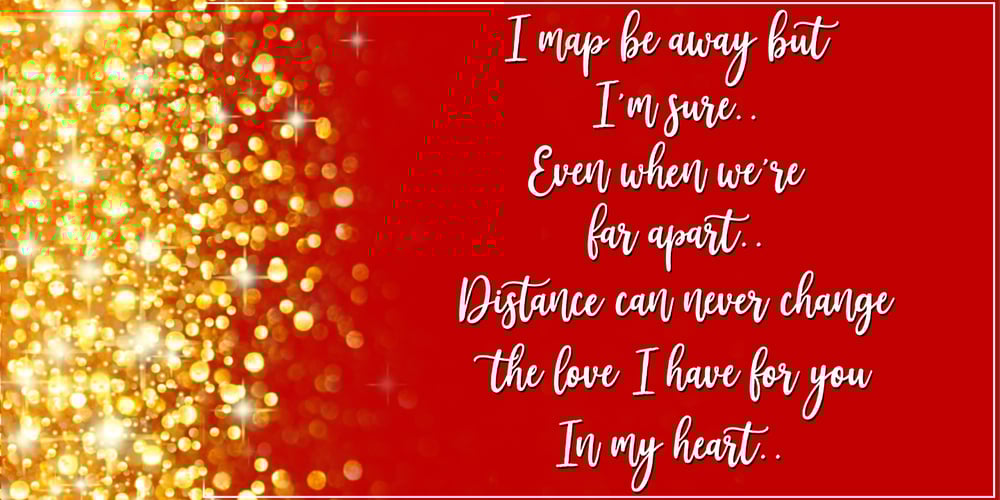
Natashabela Font Family was designed by Muammar and published by Scoothtype. Natashabela contains 1 styles and family package options. Natashabela Script is a modern handwritten font written in a gentle motion using Artline brush pen, this font is perfect for logos, T-shirts, product packaging, greeting cards, brands, blogs, wedding invitations, all including personal charm, etc. The Natashabela script also includes a full set of upper and lower case letters, as well as alternative lowercase letters, swash, multilingual symbols, numbers, punctuation. Natashabela Script is coded with PUA Unicode, which allows full access to all additional characters without having special design software. Mac users can use Font Book, and Windows to attach your favorite text editor / application. Files include: – Natashabela .OTF To enable OpenType Stylistic Alternates, you need a program that supports OpenType features such as Adobe Illustrator CS, Adobe Indesign & CorelDraw X6-X7, Microsoft Word 2010 or newer. How to access all alternative characters: https://www.youtube.com/watch?v=Go9vacoYmBw https://www.youtube.com/watch?v=XzwjMkbB-wQ https://www.youtube.com/watch?v=x1A_ilsBsGs https://www.youtube.com/watch?v=xFlMwARHusY Thank you very much for searching!